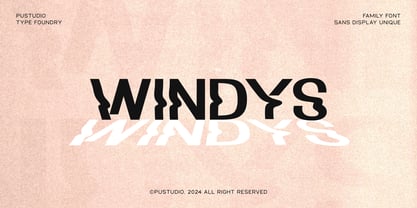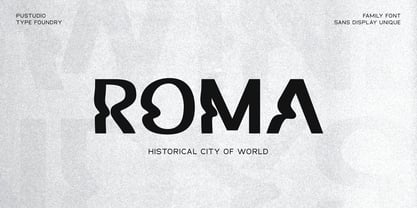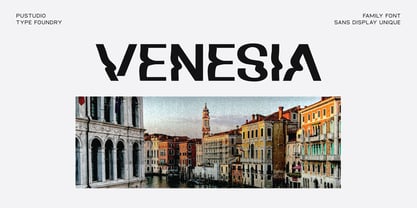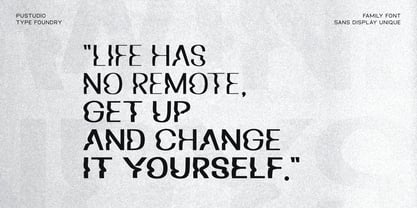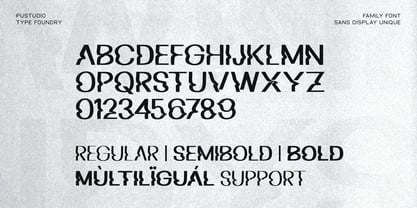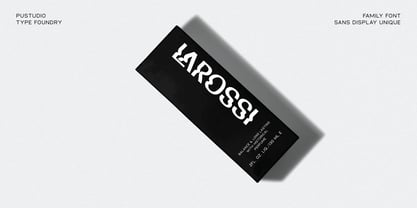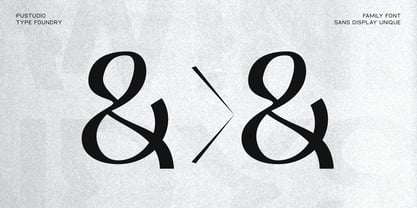
Windys
por pustudio
La familia tipográfica Windys fue diseñada por Haris Prawoto y publicada por pustudio. Windys contiene 3 estilos y opciones de paquete familiar. Más información sobre esta familia
WINDYS is a modern display font that features three versatile weights, perfect for various design projects. It’s ideal for creating striking titles for posters, magazines, and book covers, making your designs stand out.
Diseñadores: Haris Prawoto
Fundición: pustudio